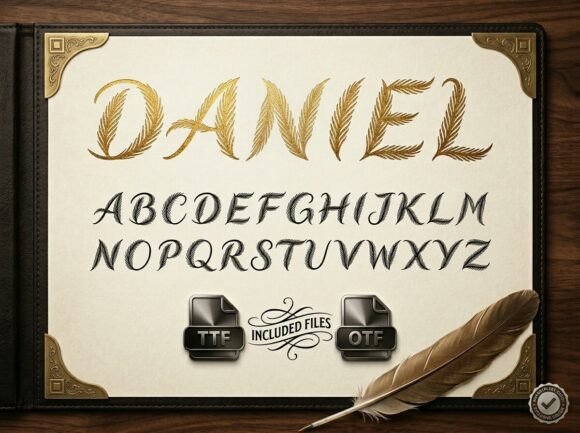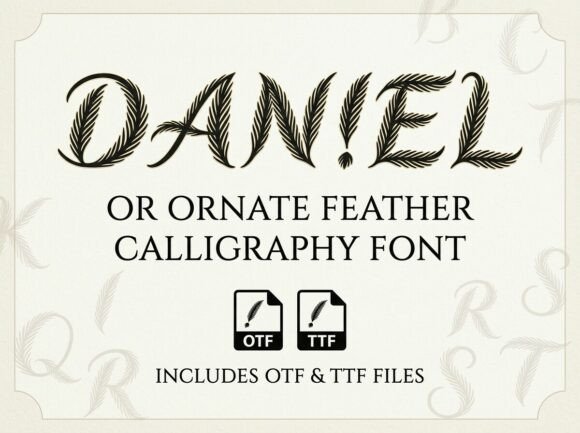
The Daniel Font: A Stunning Decorative Display Font
Have you ever been in the middle of a design project, and suddenly, you just can’t seem to find the right font? I know I have. It was a few years ago when I was working on a branding project for a boutique hotel. My client wanted a bold, eye-catching logo that would stand out, but I was struggling to find a font that fit the bill. That’s when I stumbled upon the Daniel Font, and it completely transformed my design.
The Daniel Font is a decorative display font that is designed to be the center of attention. With its unique artistic elements and strong visual personality, it’s perfect for creators who want to break away from the ordinary. In this article, we’ll dive into the features of the Daniel Font, its uses, and some practical tips on how to get the most out of it.
What I Love About the Daniel Font
Here’s what I love about the Daniel Font:
- ✨ Unique Artistic Elements: The Daniel Font features intricate details and artistic flourishes that make it truly stand out.
- ✅ Professional and Polished Finish: Despite its bold and decorative nature, the font maintains a professional and polished finish, making it suitable for a wide range of applications.
- 💡 Versatility: The Daniel Font is versatile enough for bold headlines, artistic logos, and creative packaging.
Honest Review: The Not-So-Good Bits
While the Daniel Font is an amazing decorative display font, there are a few quirks to be aware of:
- ⚠️ ALL-CAPS Only: The Daniel Font is an all-caps display typeface, which means it doesn’t include lowercase letters. This might limit its use for body text or longer paragraphs.
- 🤔 Limited Use Cases: While the font is versatile, it’s best suited for high-impact headlines, logos, and decorative initials. It might not be the best choice for more formal or traditional designs.
The Story Behind the Daniel Font
The Daniel Font was designed by a team of typographers who wanted to create a unique and eye-catching display font. Inspired by classic art deco and modern calligraphy, the font features intricate details and artistic flourishes that make it truly stand out. The designers aimed to create a font that would be perfect for high-impact headlines, logos, and decorative initials.
| Is the Daniel Font suitable for body text? | No, the Daniel Font is best suited for high-impact headlines, logos, and decorative initials. It’s not recommended for body text or longer paragraphs. |